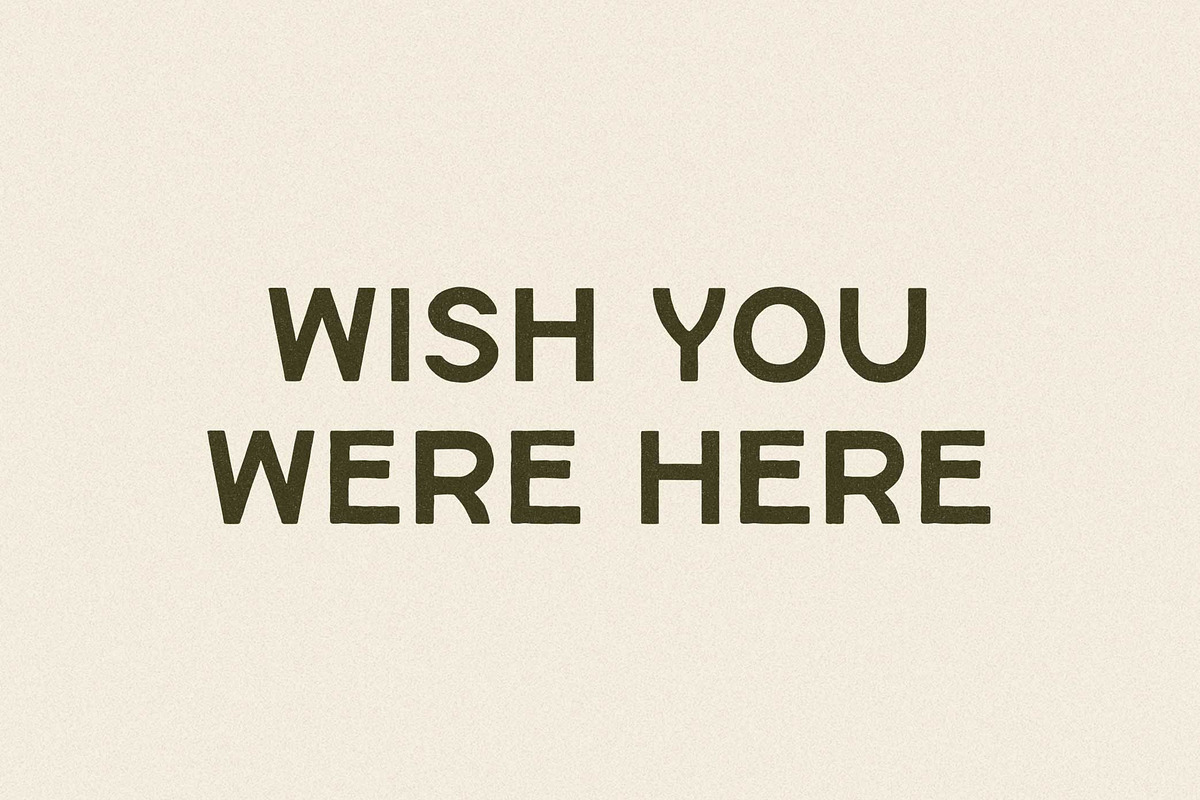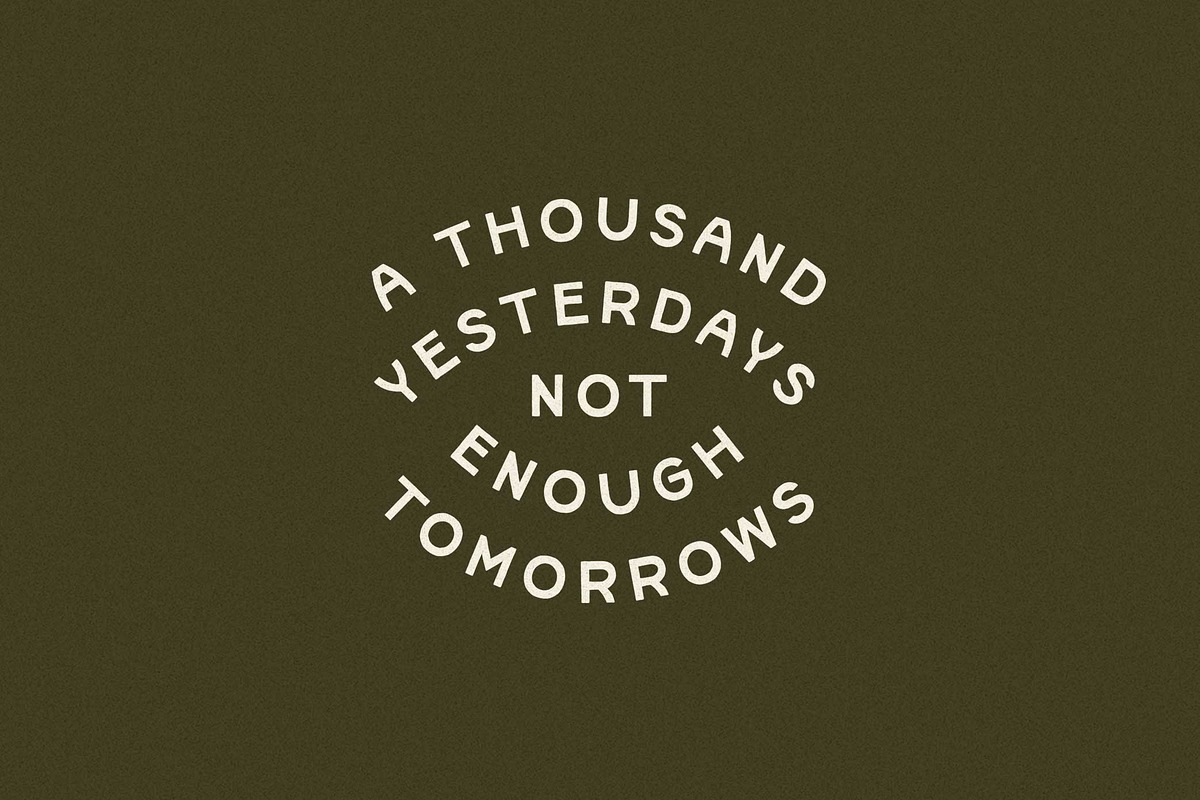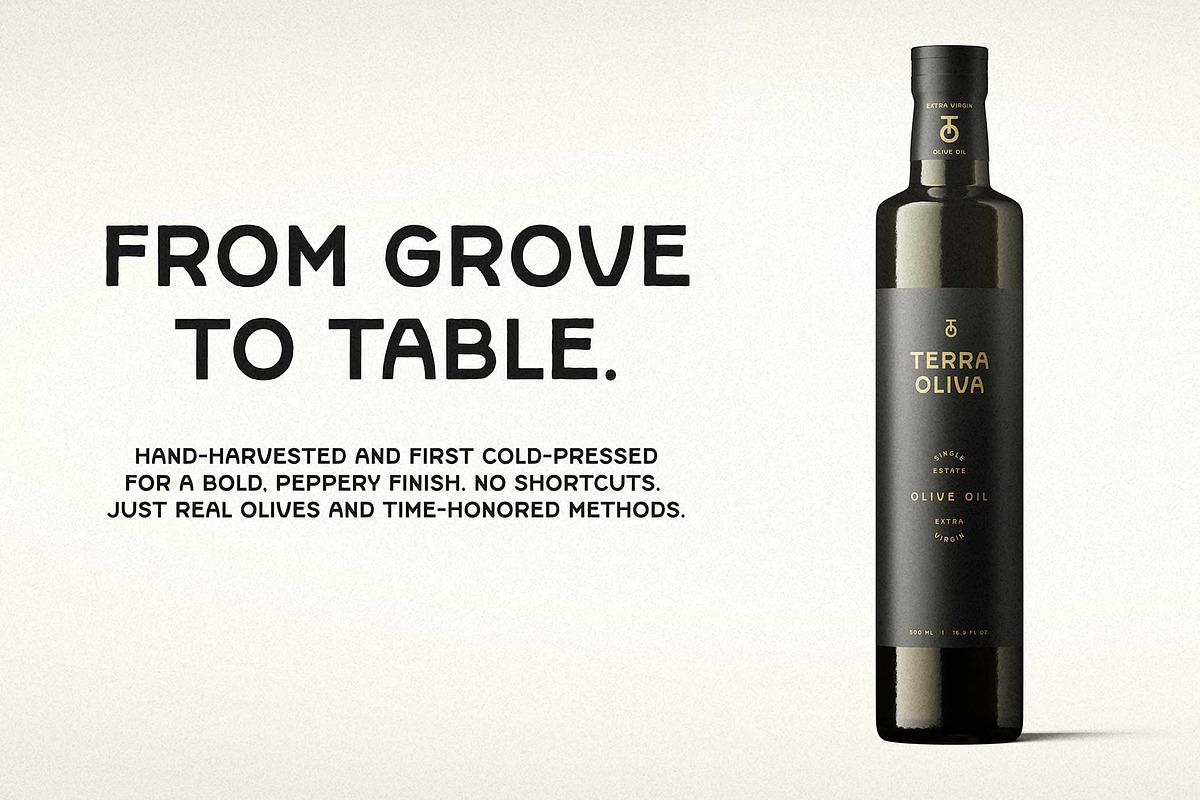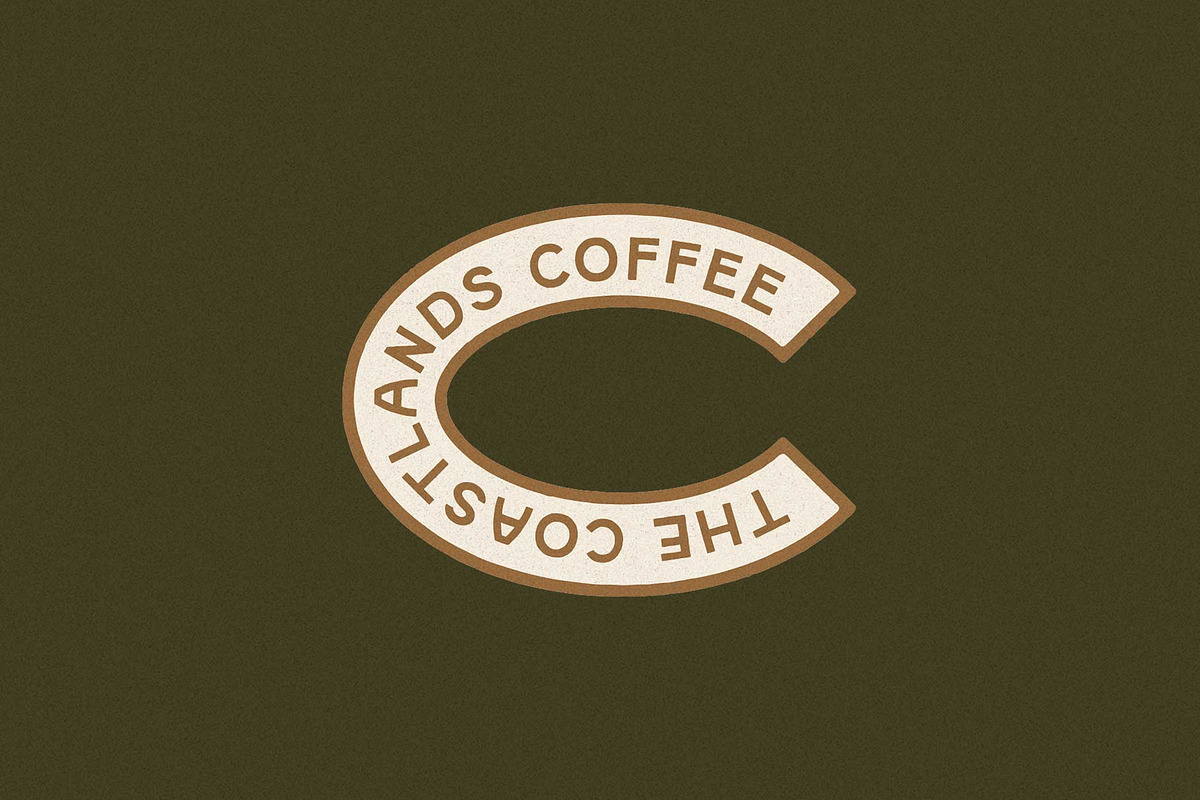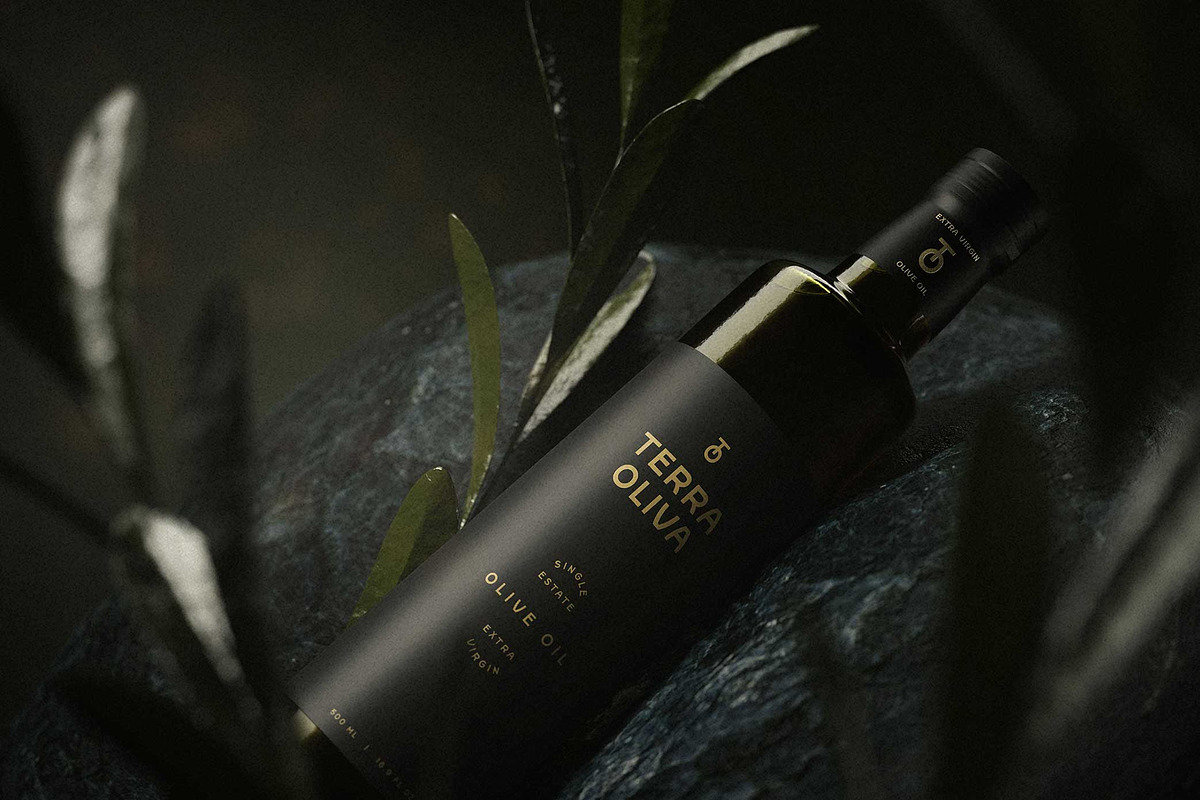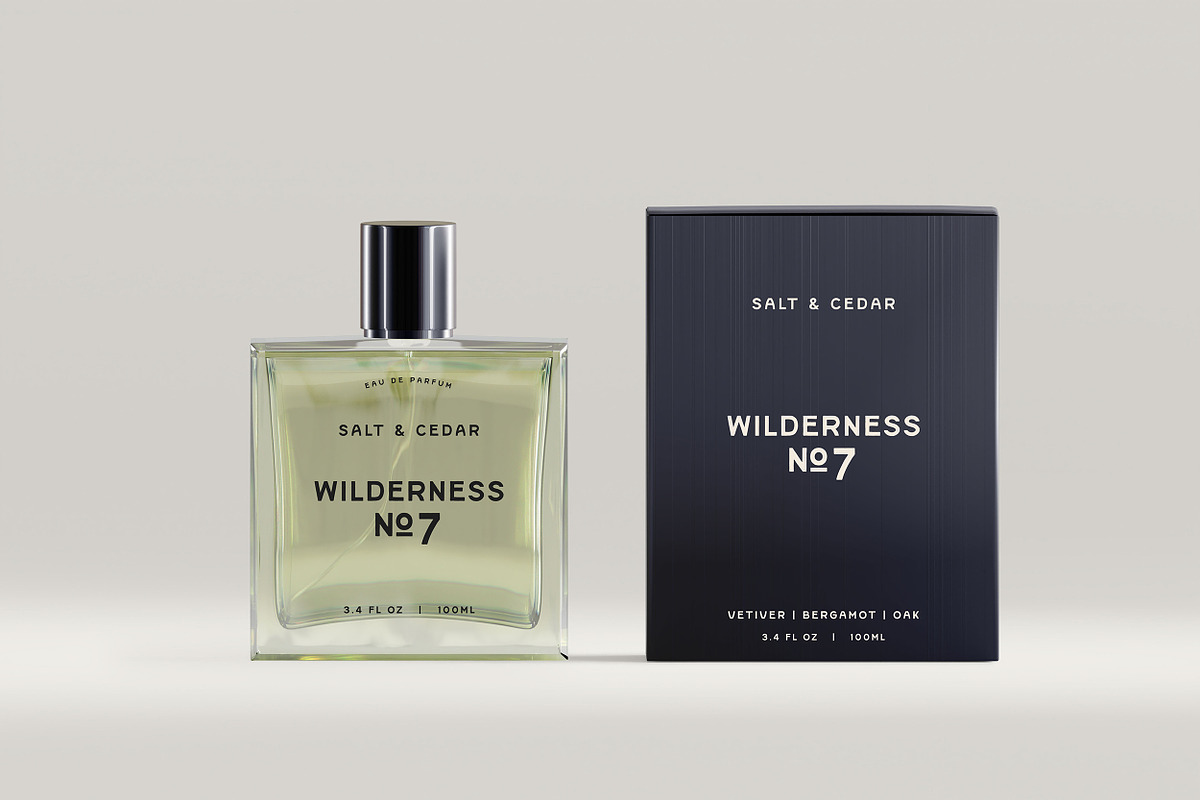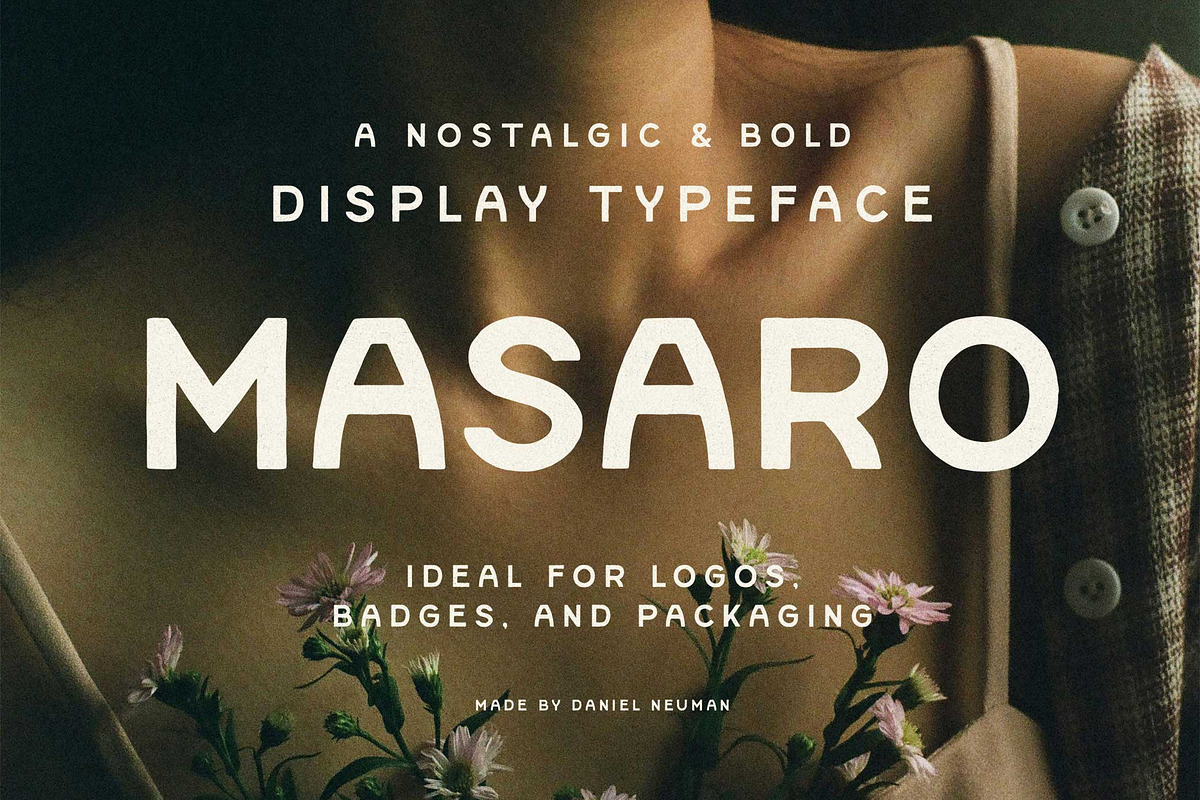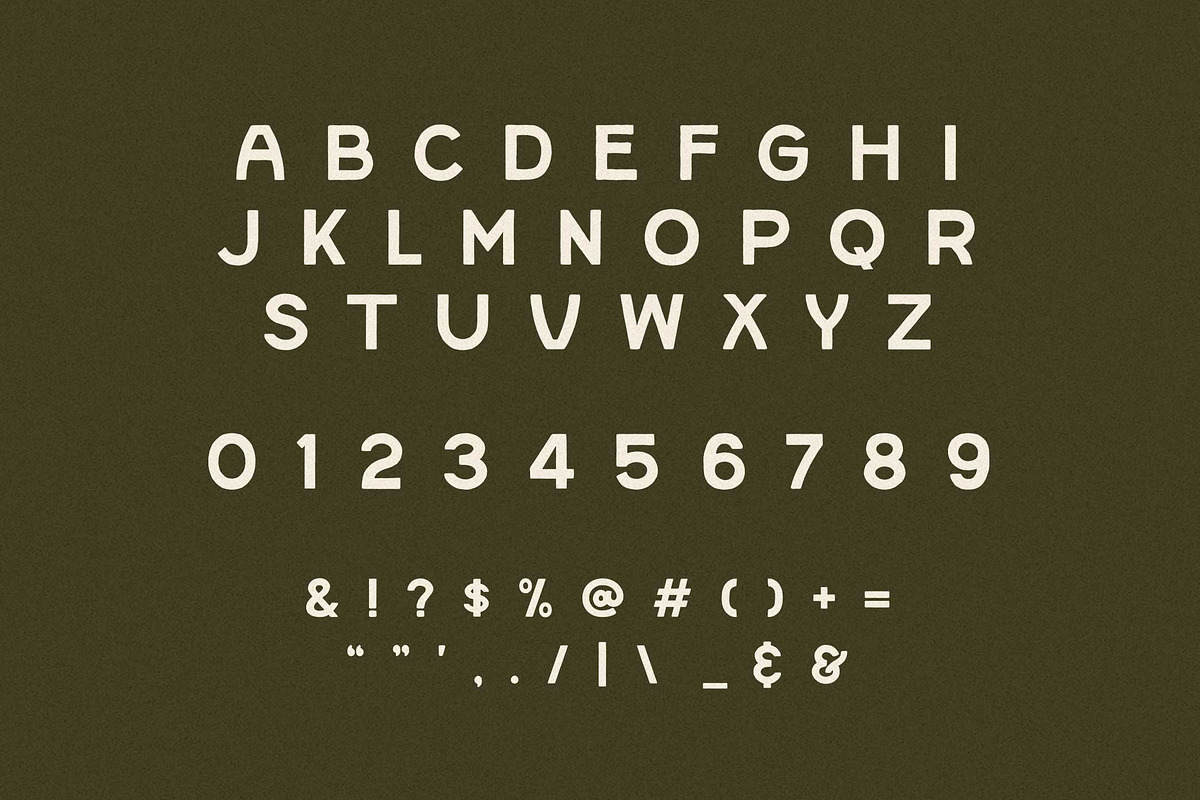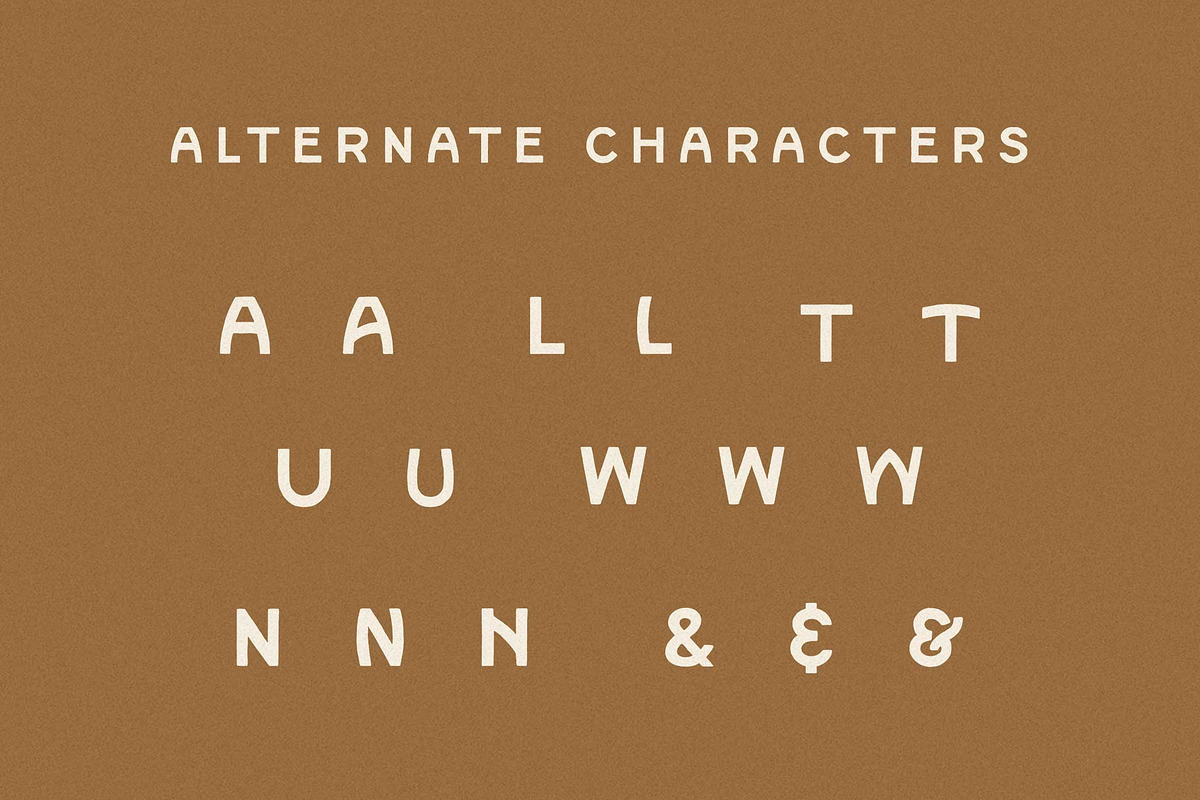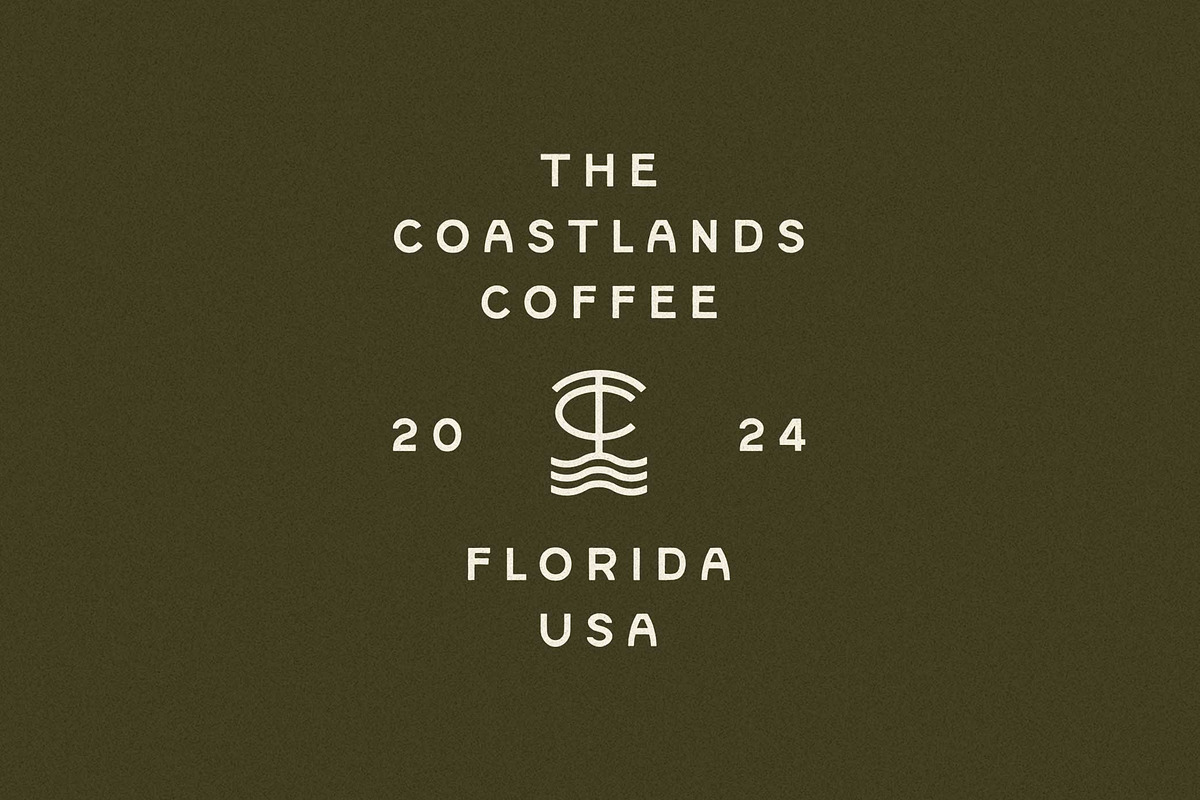
Masaro Nostalgic Display
Masaro is a bold, hand-drawn display typeface with rugged character and raw energy. Its all-caps design brings a strong, imperfect charm that feels both nostalgic and confidently modern. Built for impact, Masaro is perfect for logos, badges, packaging, and bold headlines that demand attention. Designed with natural imperfections, it carries the feel of something crafted by hand—authentic, unpolished, and full of personality.